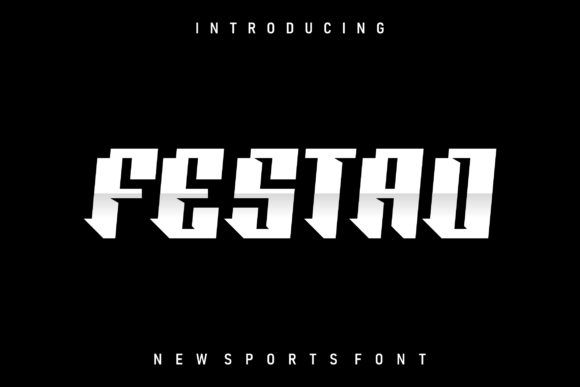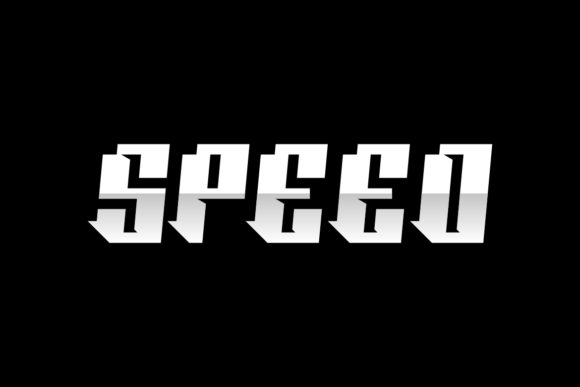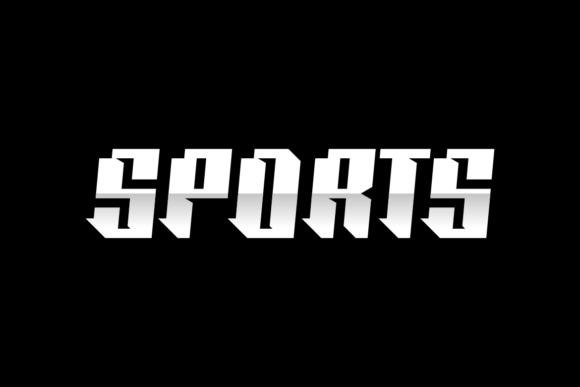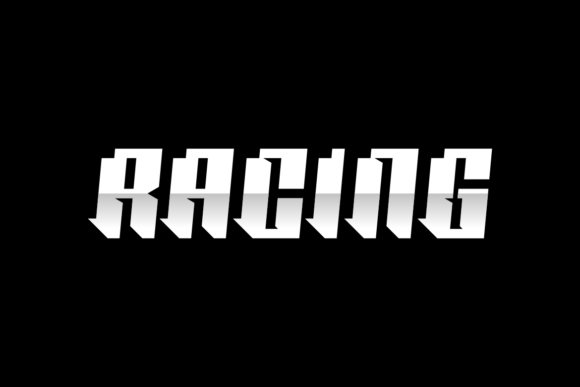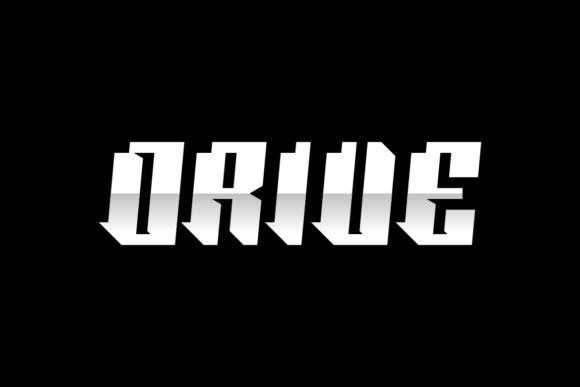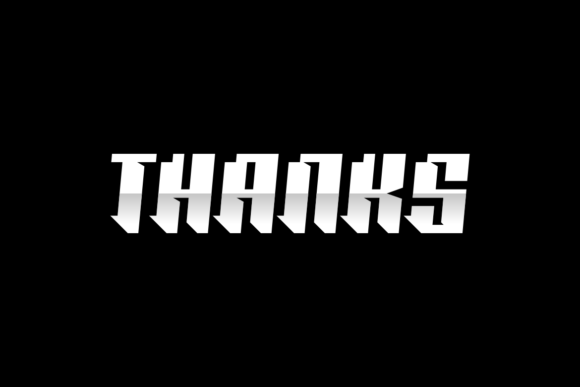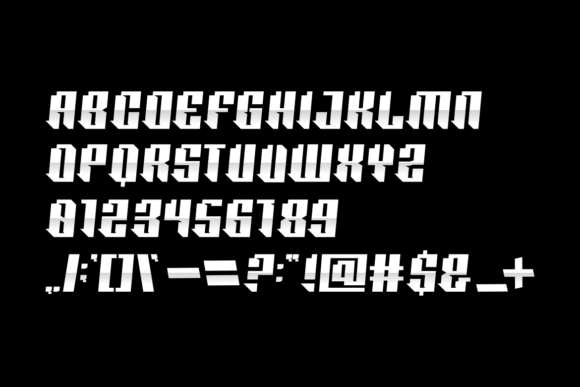
Festad
Festad: A Bold and Sporty Slab Serif Font
Festad is a bold slab serif font that combines beautiful, sporty, and modern design elements. This versatile typeface is perfect for various projects, from signatures and stationery to branding and packaging design.
Key Features of Festad
• Bold Design: Offers thick, block-like serifs for impact[2].
• Sporty Style: Brings dynamic character to designs.
• Modern Appeal: Features contemporary design elements.
• Versatile Application: Adapts well to numerous design contexts[3].
Best Uses for Festad
Thanks to its versatile characteristics, Festad works especially well for:
When using Festad in your designs, keep these tips in mind:
• Try it for headlines or display text to showcase its bold style[4].
• Use different sizes to highlight its sporty features.
• Pair with simpler fonts for body text to create balance[2].
• Let its versatility enhance both traditional and contemporary projects.
To sum up, Festad is an excellent choice for designers seeking a bold and sporty slab serif font. Its versatility makes it perfect for a wide range of projects. Whether you’re creating wedding materials, designing logos, or developing branding packages, Festad offers the perfect blend of contemporary style and athletic sophistication.
Furthermore, Festad’s distinctive design allows it to shine in contexts where both boldness and sportiness are key. For instance, from stationery to website headers, this font can elevate your projects with its refined style. Also, its bold yet modern appearance works particularly well in designs that aim to make a sophisticated impact[2][4].
In conclusion, Festad truly captures the essence of modern sport in slab serif typography. Its versatility across different applications shows how well it can serve various creative needs. Therefore, for those wanting to add a touch of athletic sophistication to their work, Festad can enhance any design with its unique style. Ultimately, it’s perfect for designers aiming to make a bold, sporty impact across a wide range of creative projects.